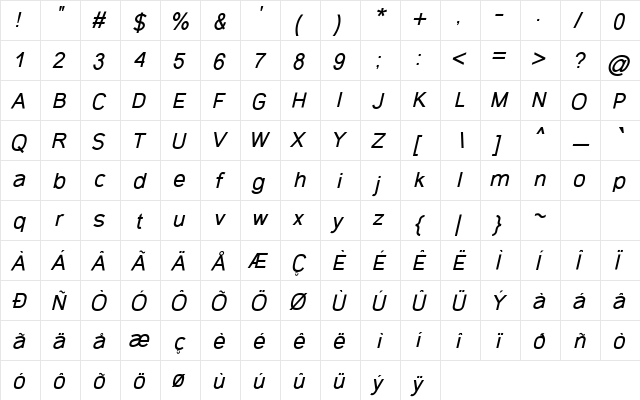
Gecade Italic
Design Context for Gecade Typeface
Gecade takes a measured approach to typography — its balanced proportions and neutral character make it a reliable workhorse for both digital and print work. Its italic angle brings a sense of urgency and motion to the letterforms.